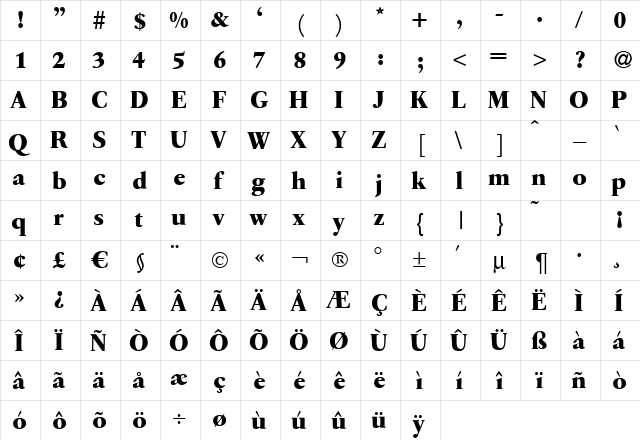
Q650-Roman Bold
Design Context for Q650-Roman Typeface
Q650-Roman takes a measured approach to typography — its balanced proportions and neutral character make it a reliable workhorse for both digital and print work. The heavy weight commands attention and anchors typographic hierarchies.